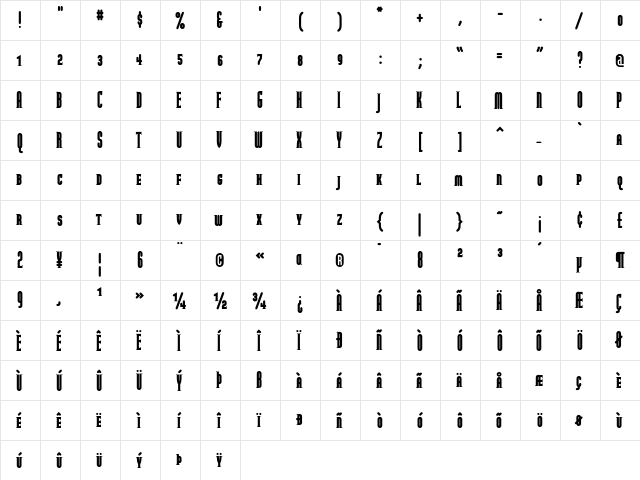
Modula RoundSerifBlackSmallCaps
Design Context for Modula Typeface
Modula carries the refined structure of traditional serif typography, with bracketed terminals and considered proportions that communicate credibility and craft.
Pro Tip: Set Modula with slightly loose tracking in headlines to let each letterform's detail read clearly at display sizes.